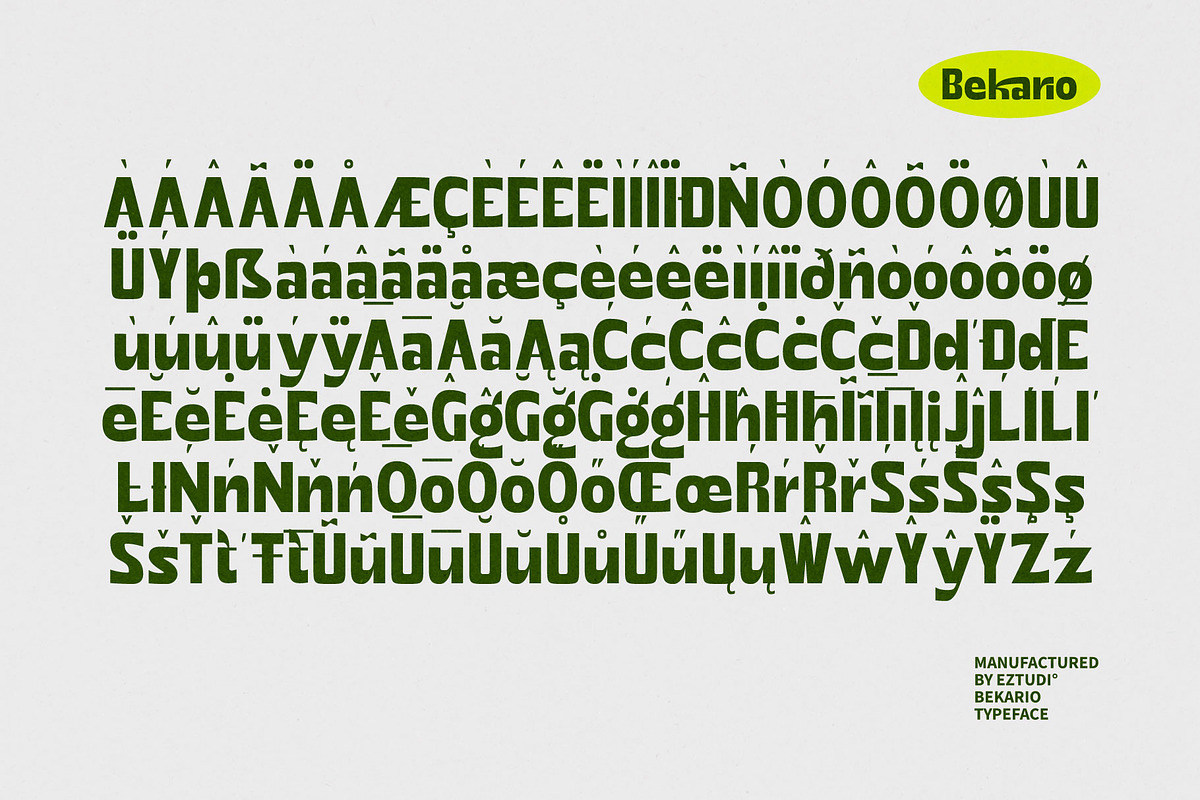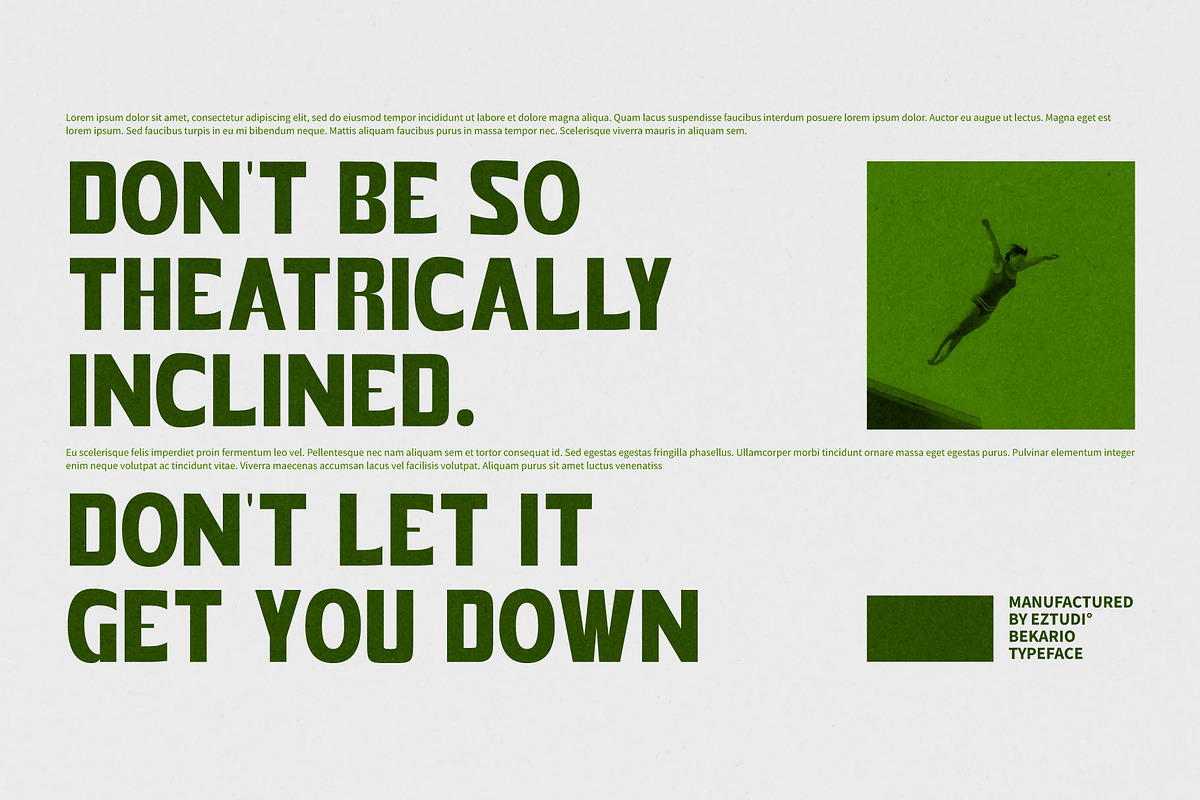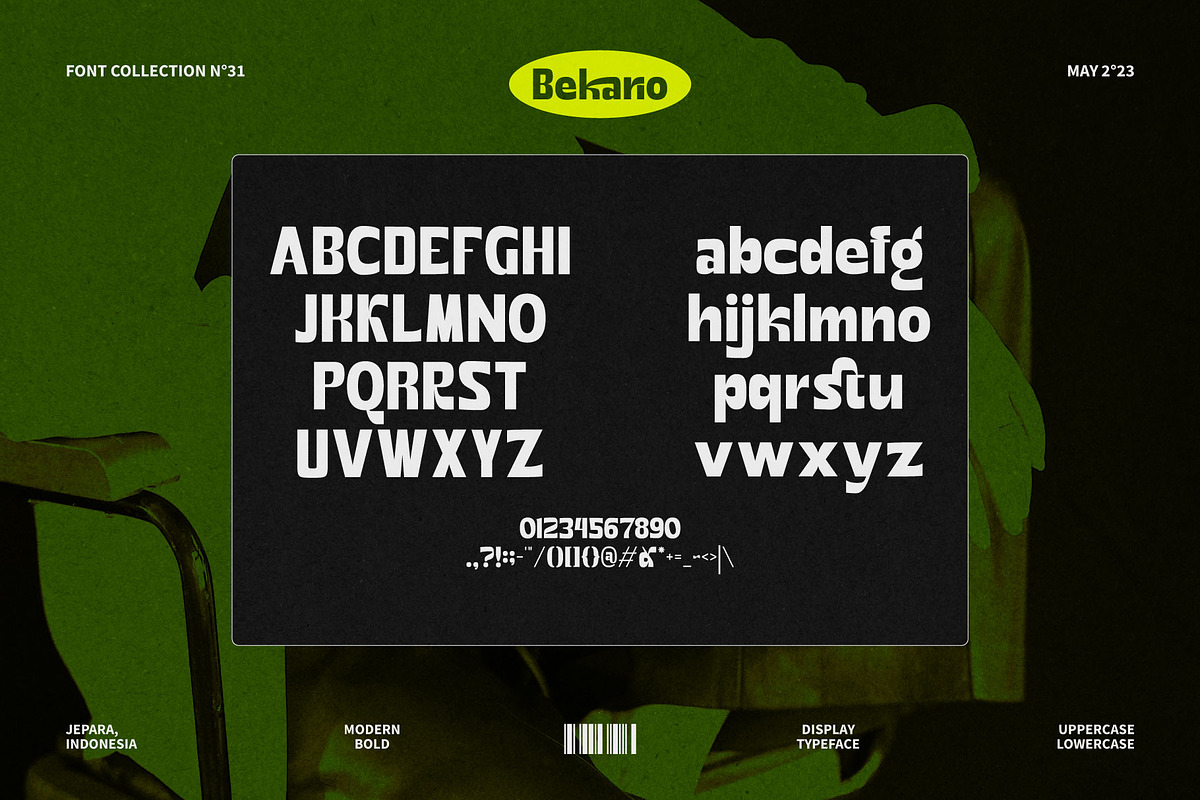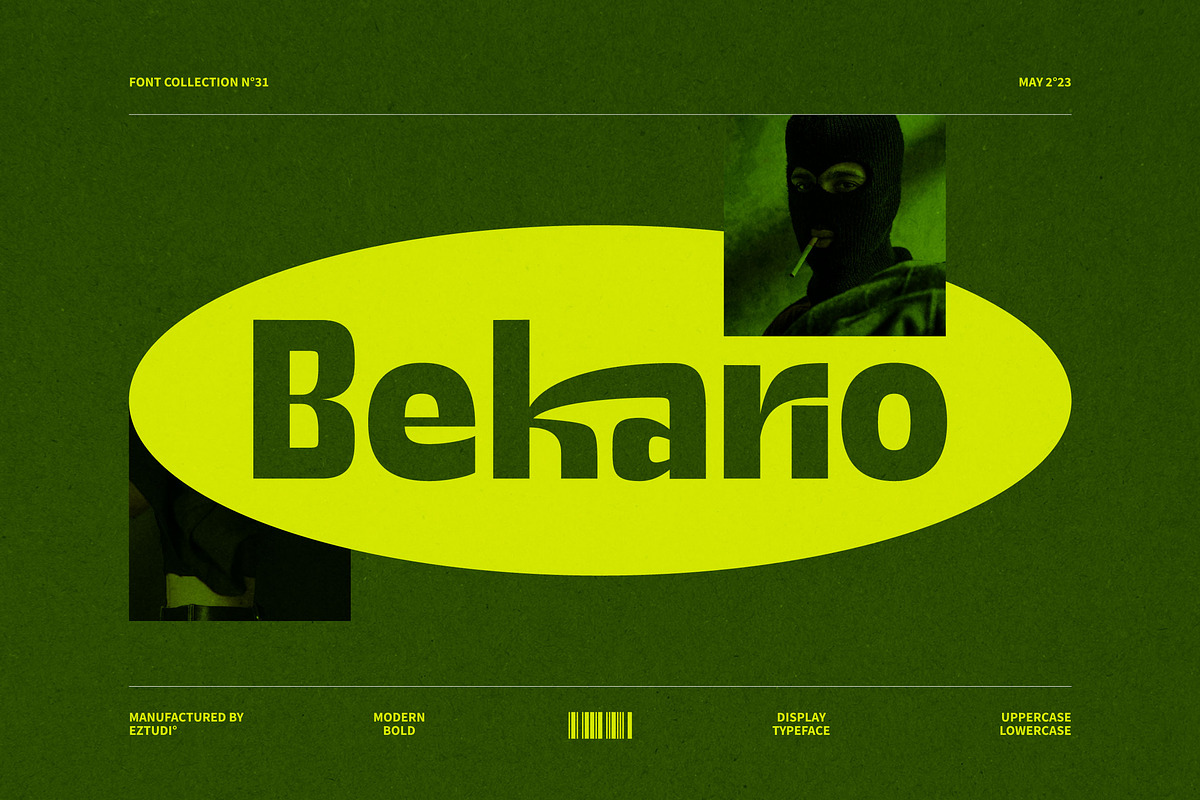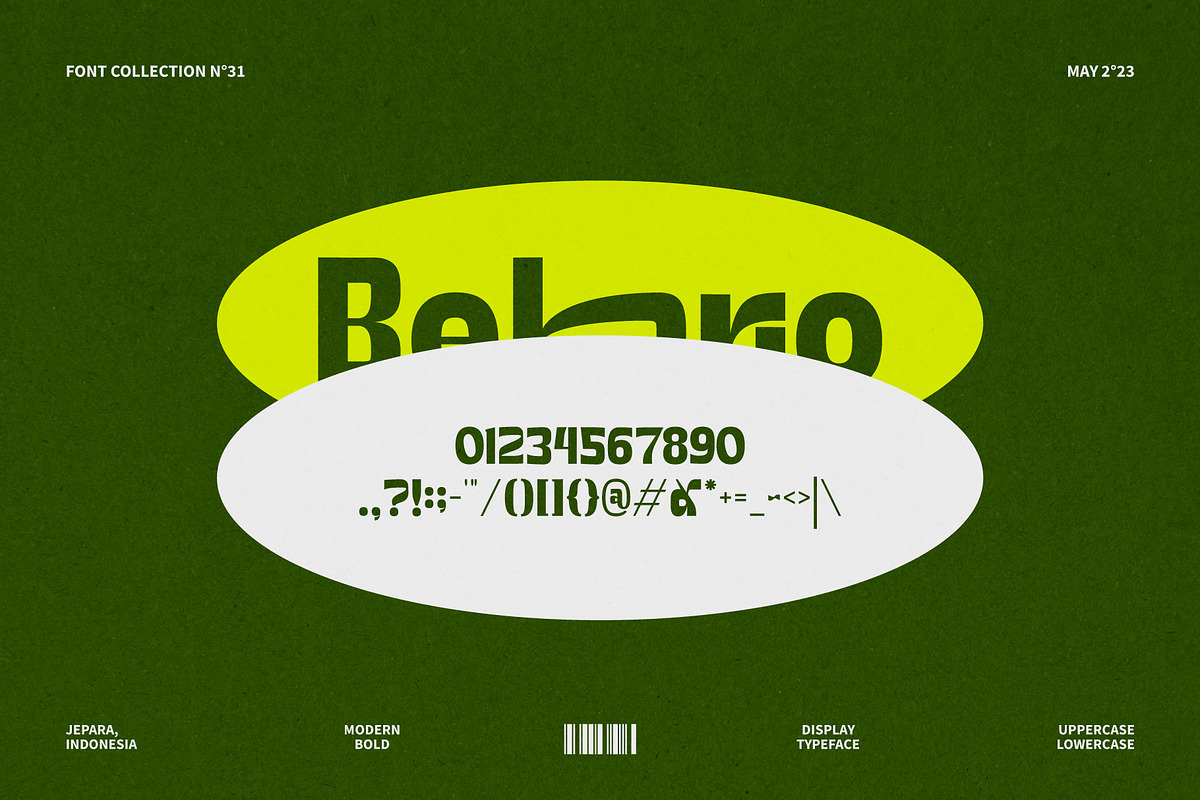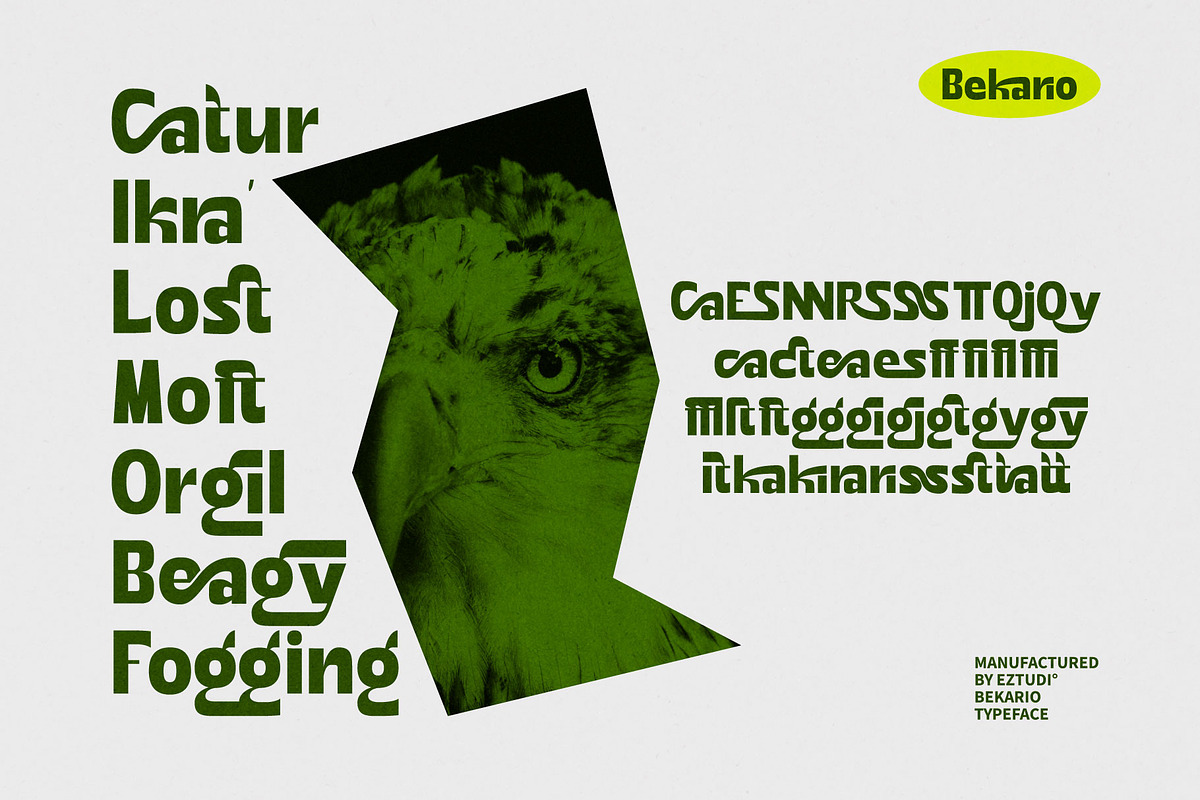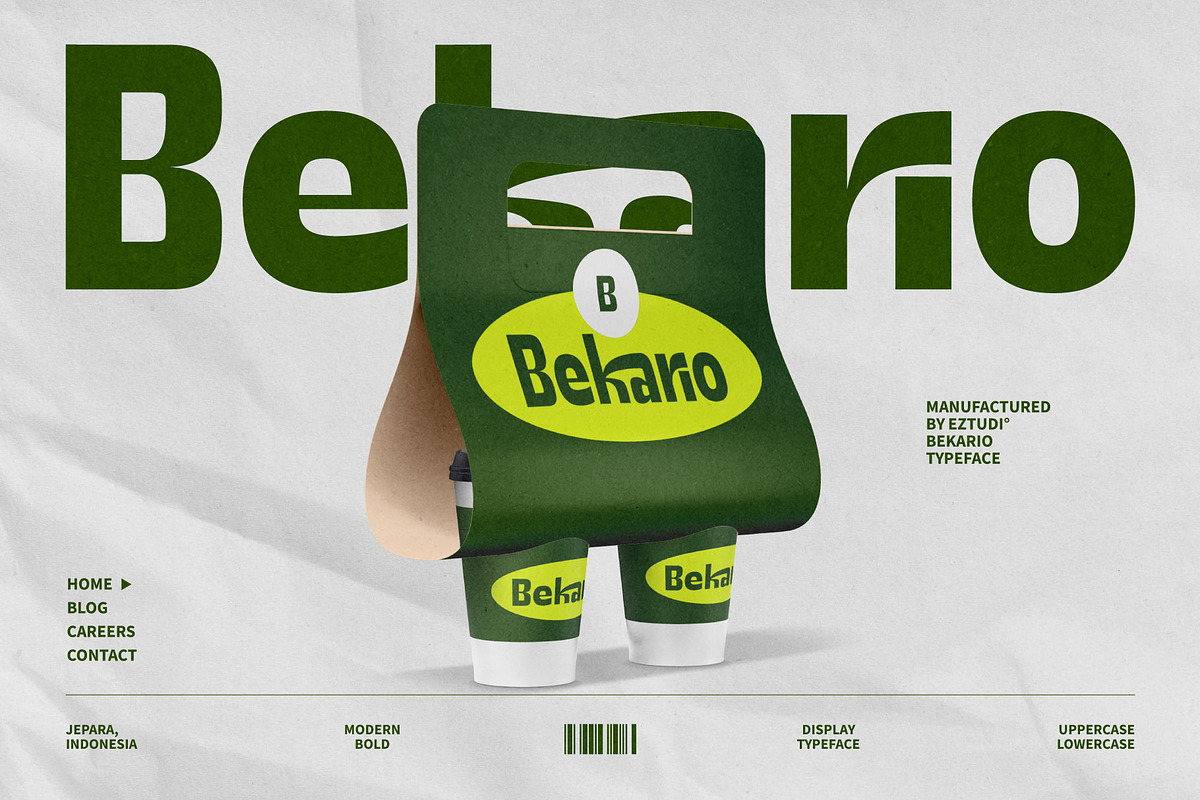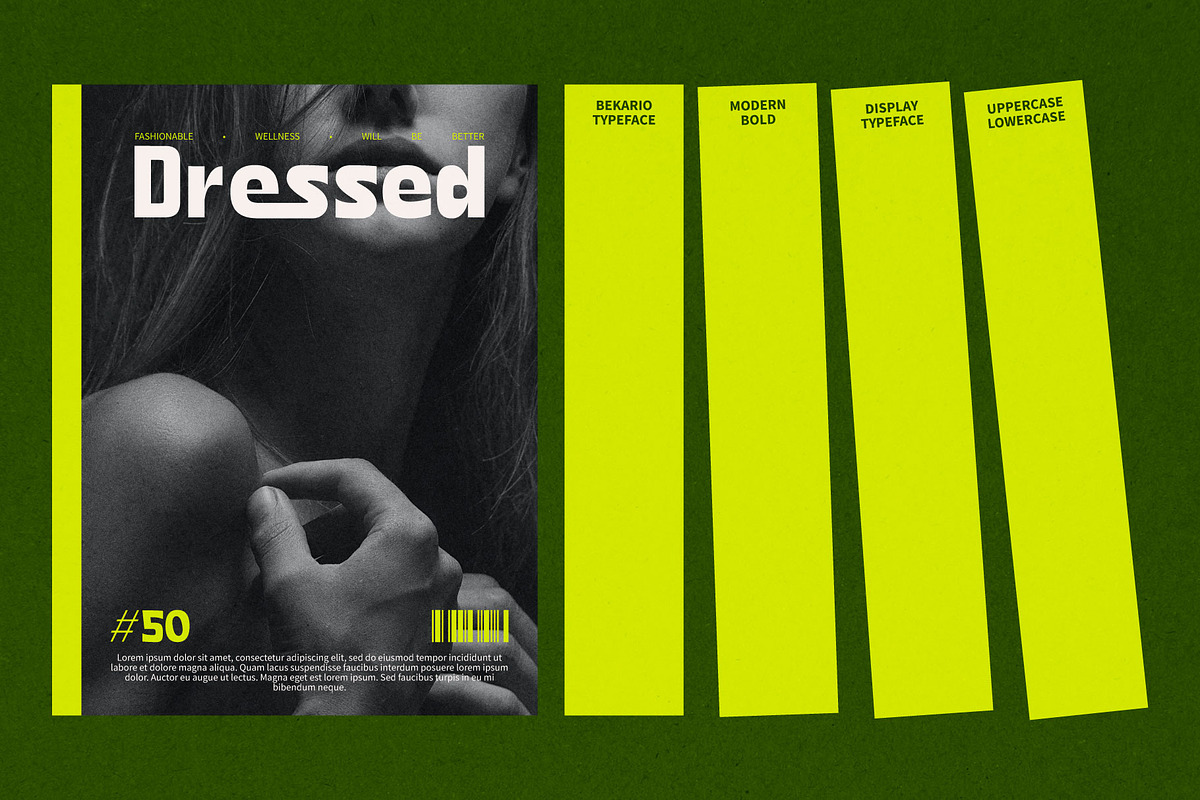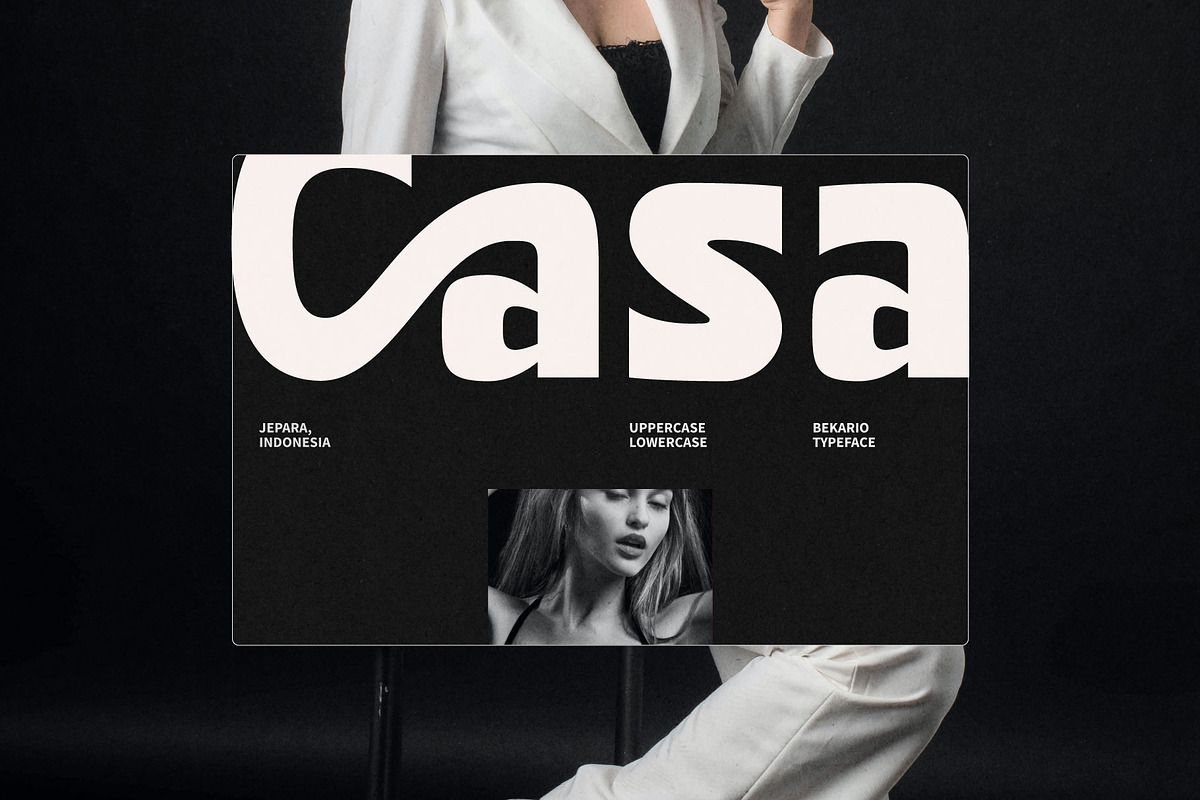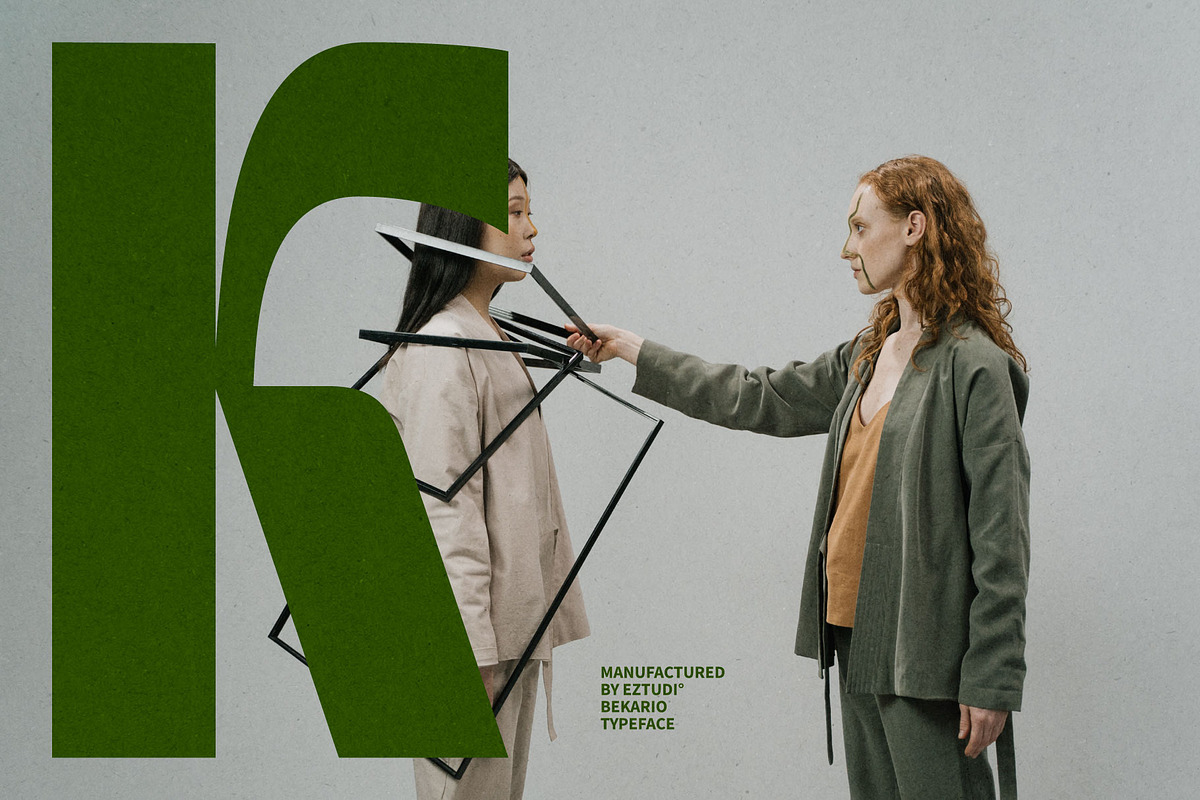
Ez-Bekario Sans Modern Display
Ez-Bekario Sans Modern Display is a font that brings a fresh and contemporary touch to any design project. This modern display sans font can be used to create elegant and luxurious design displays, such as logos, titles, and use on web or social media displays. Ez-Bekario is the perfect font selection for those seeking something modern and unusual for their upcoming project.
The Ez-Bekario font includes:
- Uppercase Letters
- Lowercase Letters
- Special Characters
- Multilingual Glyphs